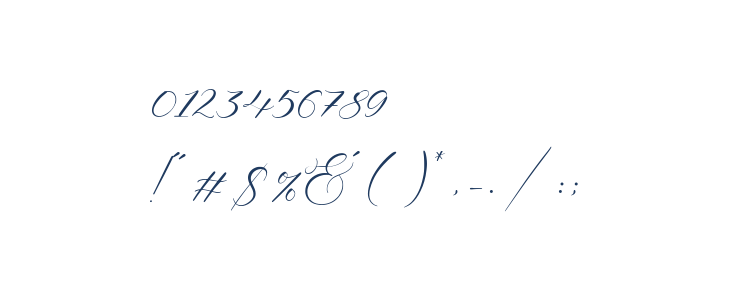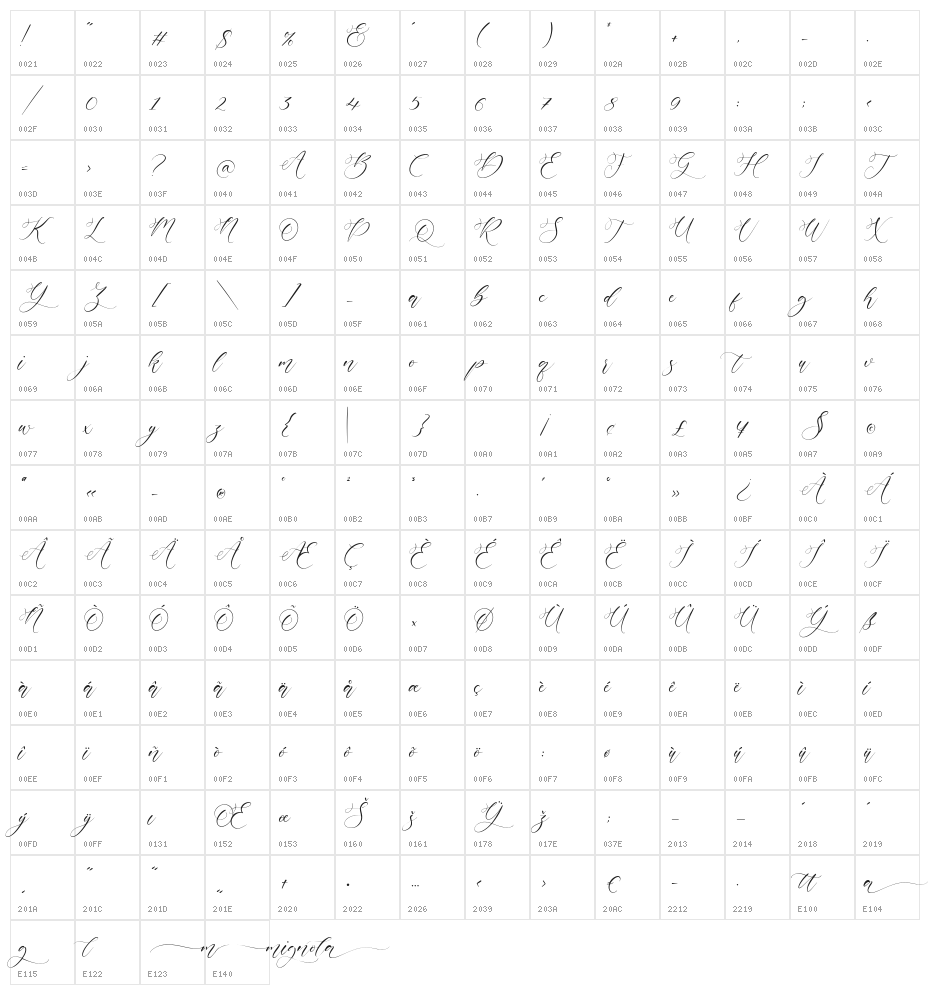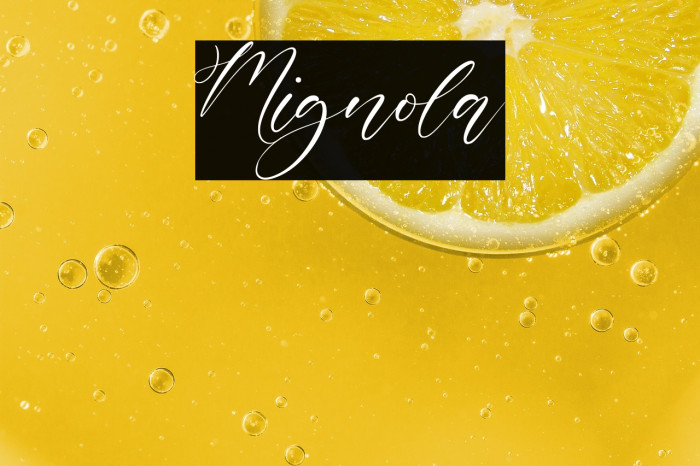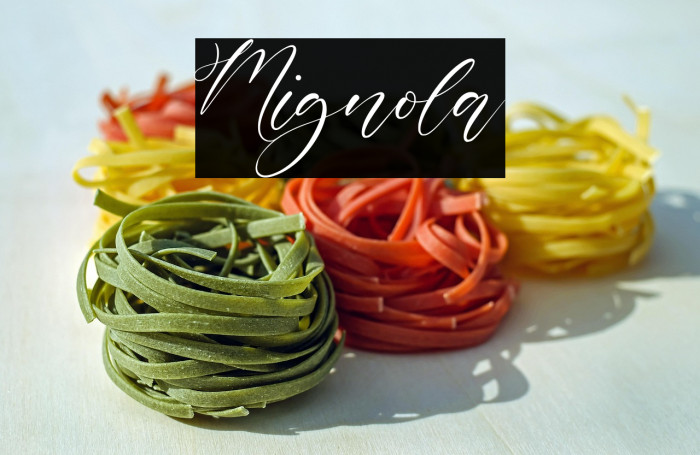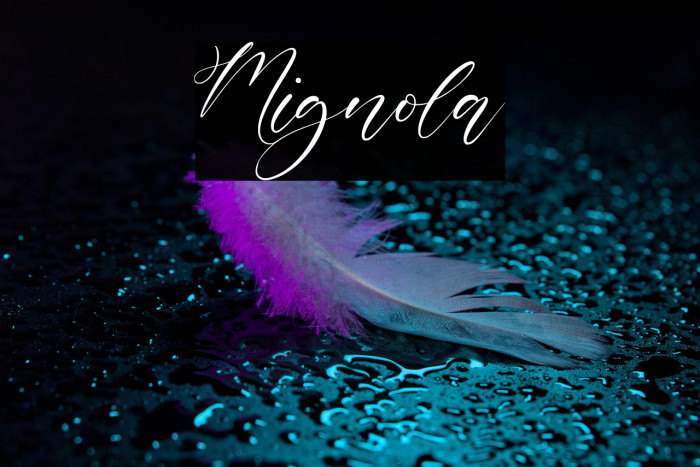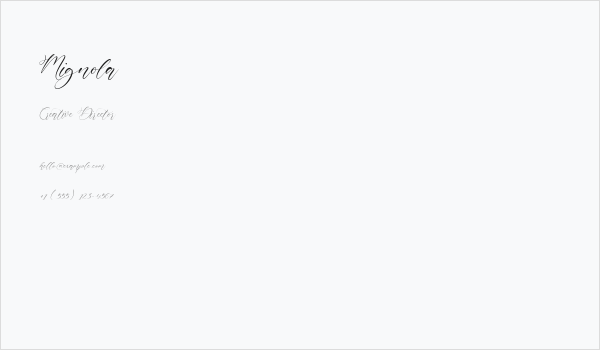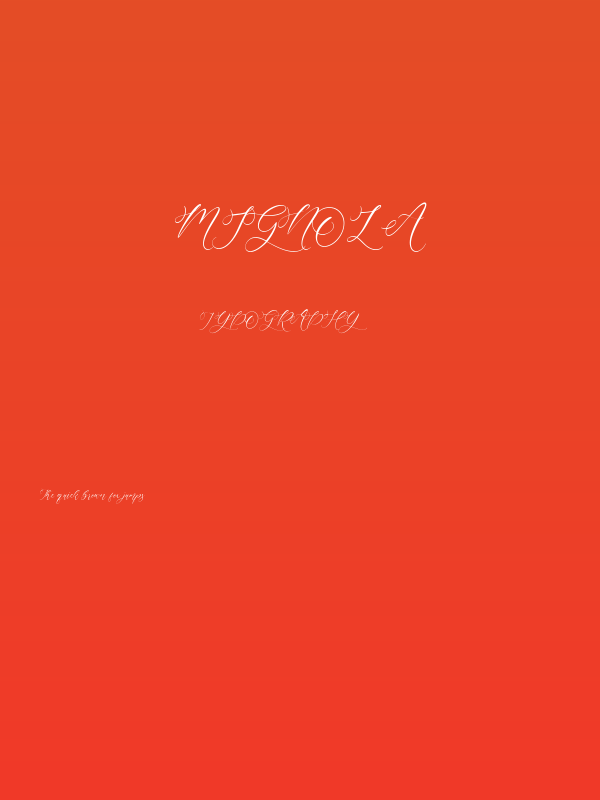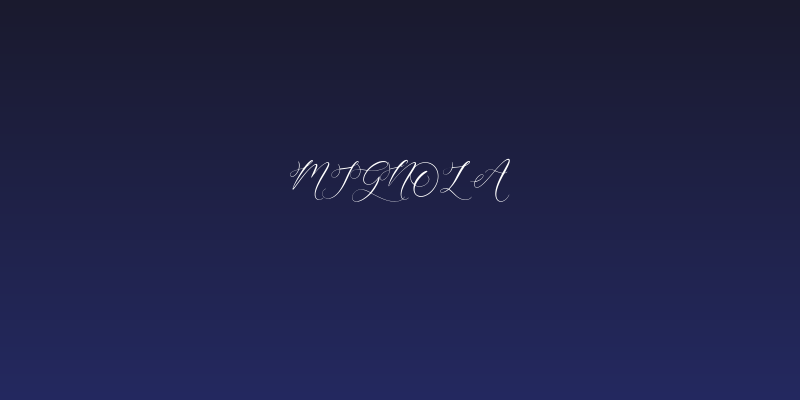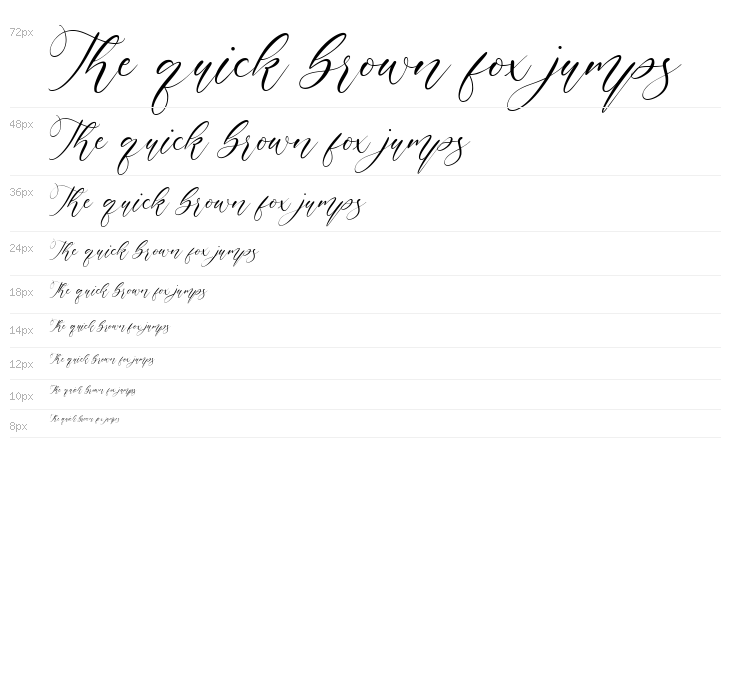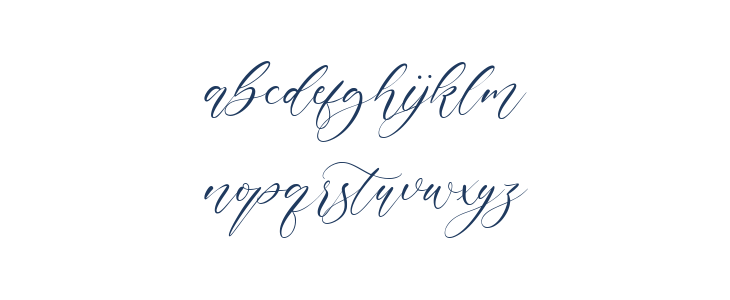
Mignola Font
Mignola Description
This elegant script font features a flowing, cursive style with intricate loops and flourishes that give it a sophisticated and artistic appearance. The uppercase letters are particularly ornate, with sweeping ascenders and descenders that create a sense of movement and grace. The lowercase letters maintain a consistent style, complementing the uppercase with their own delicate curves. The numbers and special characters are designed to match the overall aesthetic, ensuring a cohesive look across all text. The font's thin strokes and high contrast between thick and thin lines add to its refined and delicate feel, making it ideal for formal and decorative applications.
| Overall Style | Elegant, Decorative |
| Use Case | Invitations, Branding, Decorative text |
| Proposed Projects | Ideal for wedding invitations, elegant branding, luxury packaging, and artistic posters. |